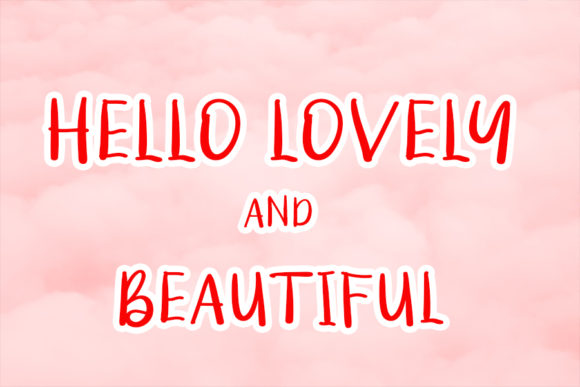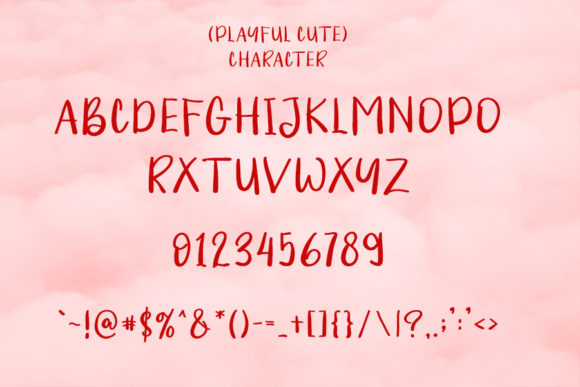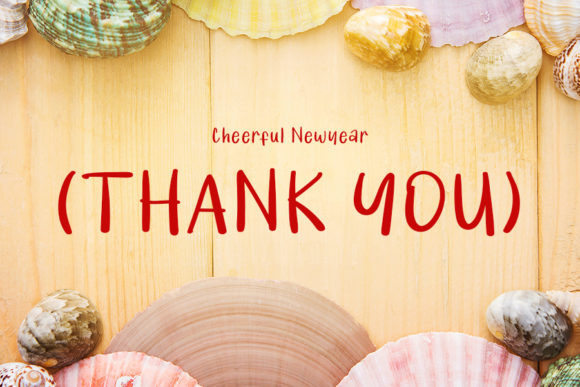
Introducing Cheerful New Year Font: Add a Playful Touch to Your Designs
As the clock strikes midnight on New Year’s Eve, the world welcomes a fresh start, filled with hope and excitement. What better way to capture the essence of this joyous occasion than with a cheerful font that exudes playfulness and energy? Look no further than the Cheerful New Year Font, a delightful handwritten font that’s perfect for adding a touch of whimsy to your designs.
What is Cheerful New Year Font?
Cheerful New Year Font is a carefully crafted handwritten font, characterized by its playful lines and dancing baseline. This unique design element gives the font a lively, dynamic feel that’s sure to capture the attention of your audience. Whether you’re a designer, crafty DIY enthusiast, or simply someone who loves to add a personal touch to your projects, this font is an excellent choice.
One of the best things about Cheerful New Year Font is its incredible versatility. Its friendly, approachable vibe makes it suitable for a wide range of design applications, including:
- Logos: Create a memorable brand identity with a custom logo that showcases your personality and style.
- Headings: Add a pop of personality to your headings, making them perfect for blog posts, articles, and social media updates.
- T-shirts and apparel: Design eye-catching tees, hoodies, and other clothing items that are sure to turn heads.
- Letterhead and stationery: Elevate your business correspondence with custom letterhead and stationery that exudes professionalism and charm.
- Signage and displays: Create attention-grabbing signs, banners, and displays that showcase your message in a fun and engaging way.
- Labels and packaging: Add a personal touch to your product labels and packaging, making them stand out on store shelves.
- News and media: Use Cheerful New Year Font to add a touch of personality to your news articles, blog posts, and other media publications.
- Posters and flyers: Design stunning posters and flyers that promote your event, product, or service with style and flair.
- Badges and stickers: Create custom badges and stickers that are perfect for events, promotions, or simply as a fun way to express yourself.
Why Choose Cheerful New Year Font?
With so many fonts available, why choose Cheerful New Year Font? Here are just a few reasons why designers and crafters love this font:
- Unique and playful design: Cheerful New Year Font boasts a distinctive, hand-crafted design that’s sure to set your projects apart.
- Easily readable: Despite its playful nature, this font remains highly legible, making it perfect for both digital and print applications.
- Highly versatile: Use Cheerful New Year Font across various design projects, from logos and headings to signage and packaging.
Tips for Using Cheerful New Year Font
To get the most out of Cheerful New Year Font, here are a few design tips to keep in mind:
- Experiment with colors: This font looks great in a variety of colors, so don’t be afraid to try out different hues and combinations.
- Play with sizes: Cheerful New Year Font can be used at various sizes, from large headings to smaller body text.
- Mix and match: Combine Cheerful New Year Font with other fonts to create a unique and visually appealing design.
Cheerful New Year Font is a delightful handwritten font that’s perfect for adding a playful touch to your designs. With its unique design, versatility, and ease of use, this font is sure to become a favorite among designers and crafters. Whether you’re looking to create a custom logo, design eye-catching signage, or simply add a personal touch to your projects, Cheerful New Year Font is an excellent choice. So why wait? Start exploring the endless design possibilities with Cheerful New Year Font today!